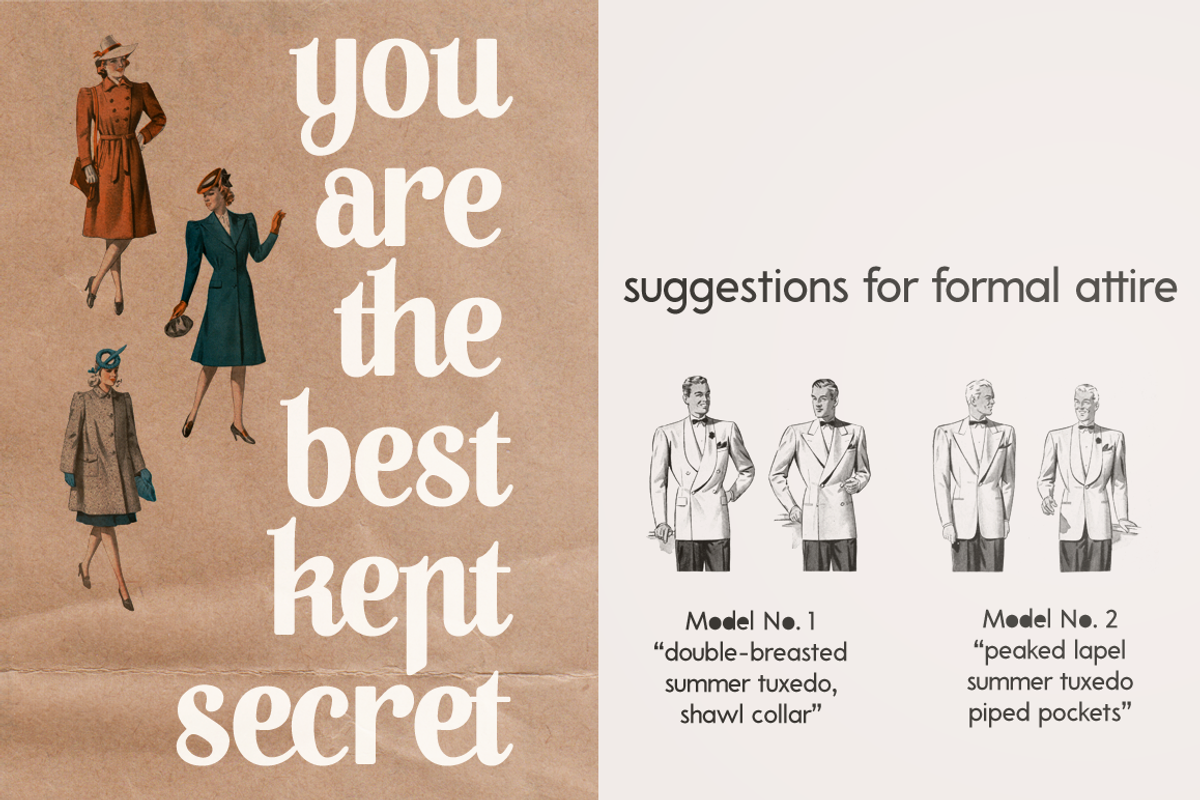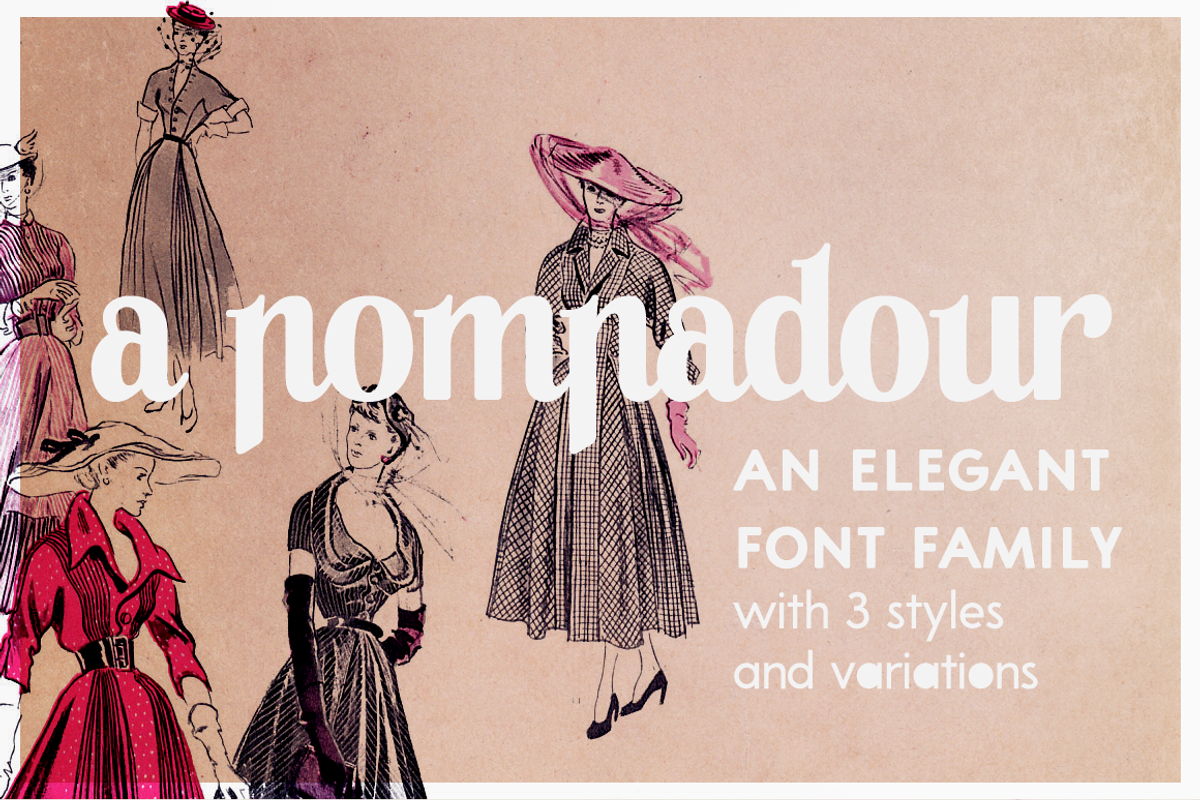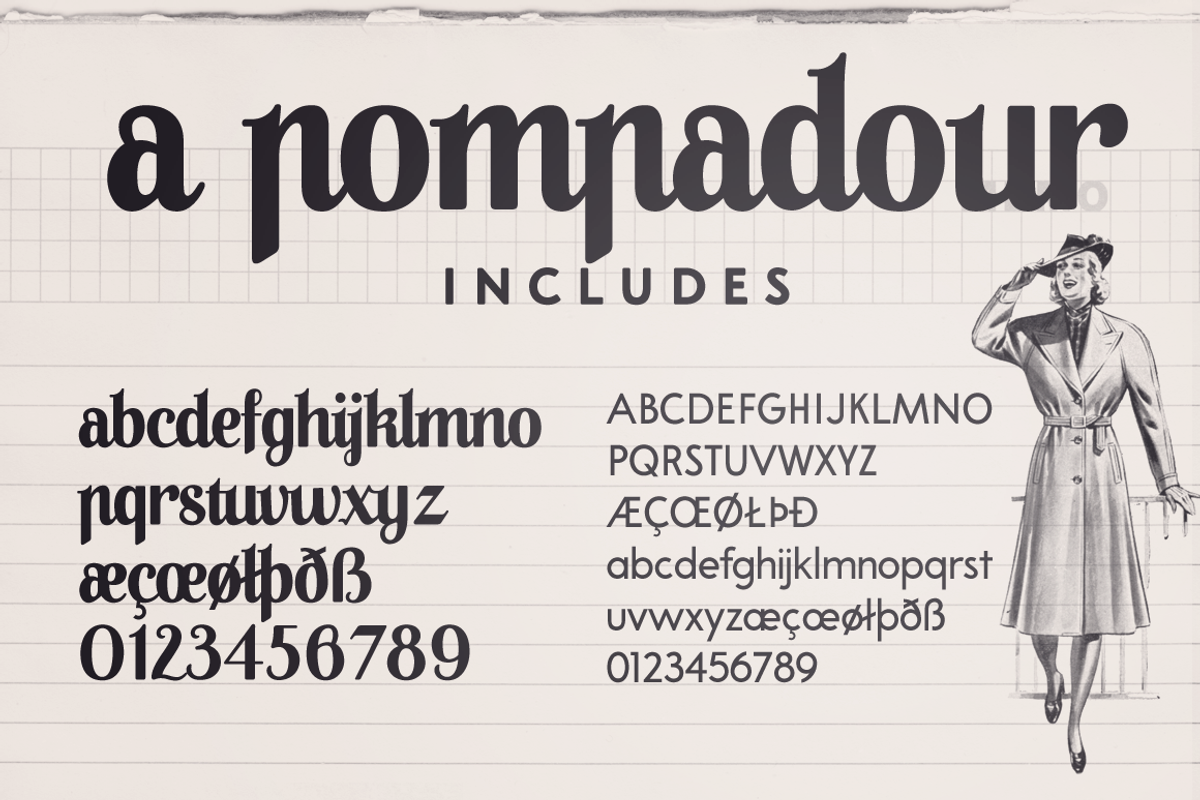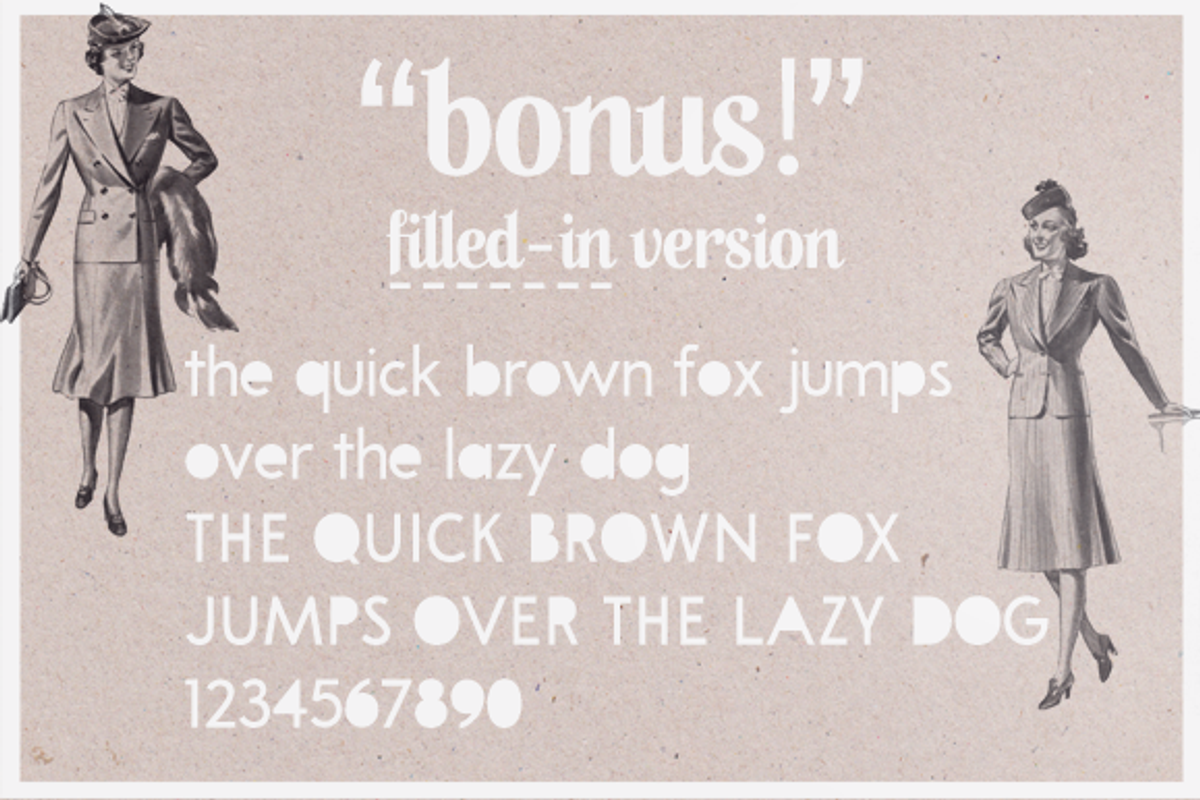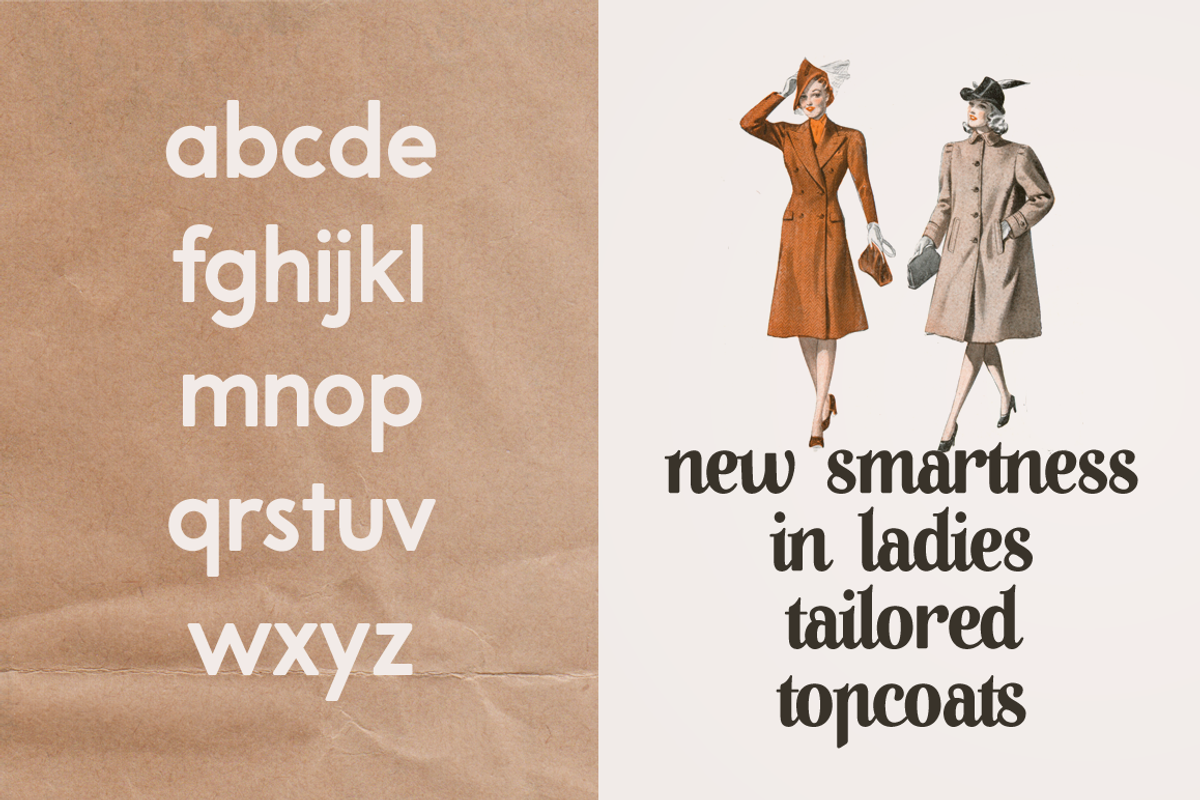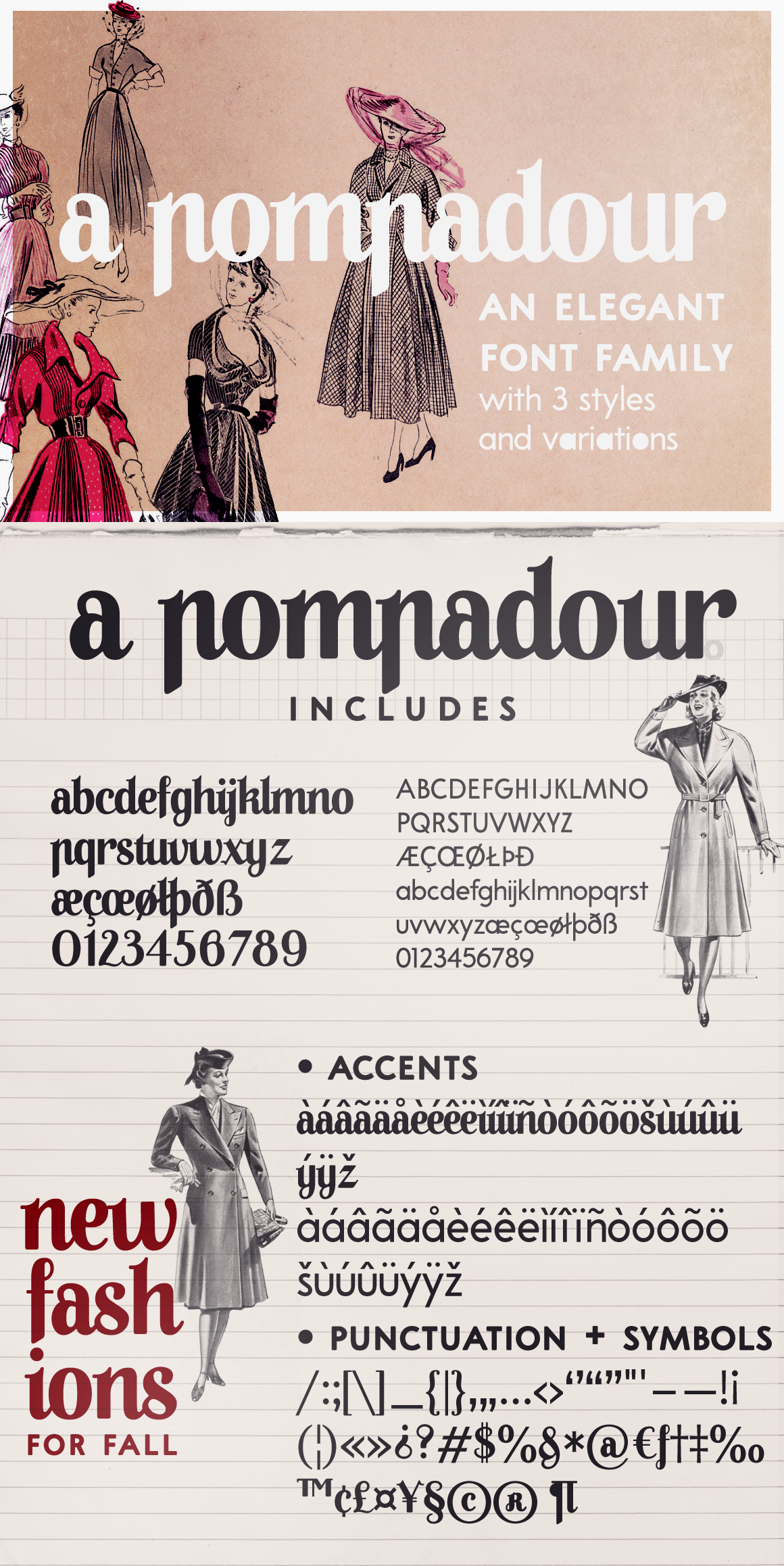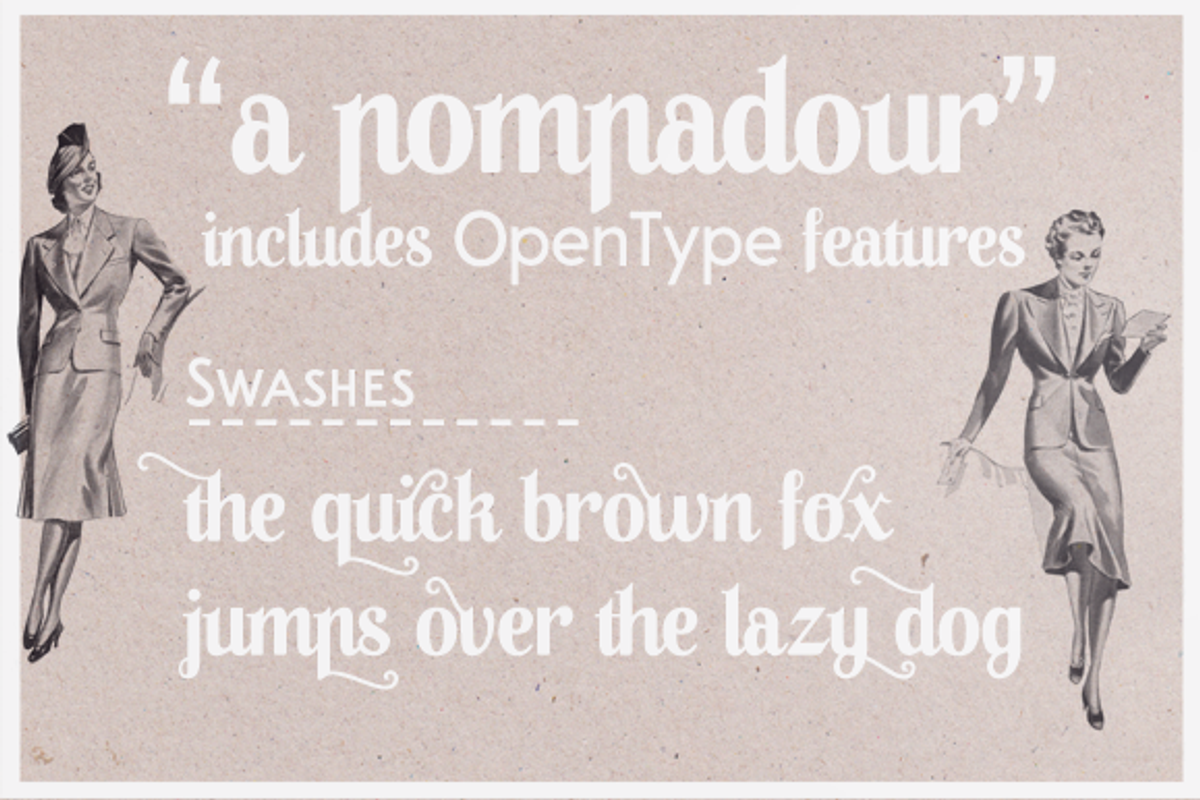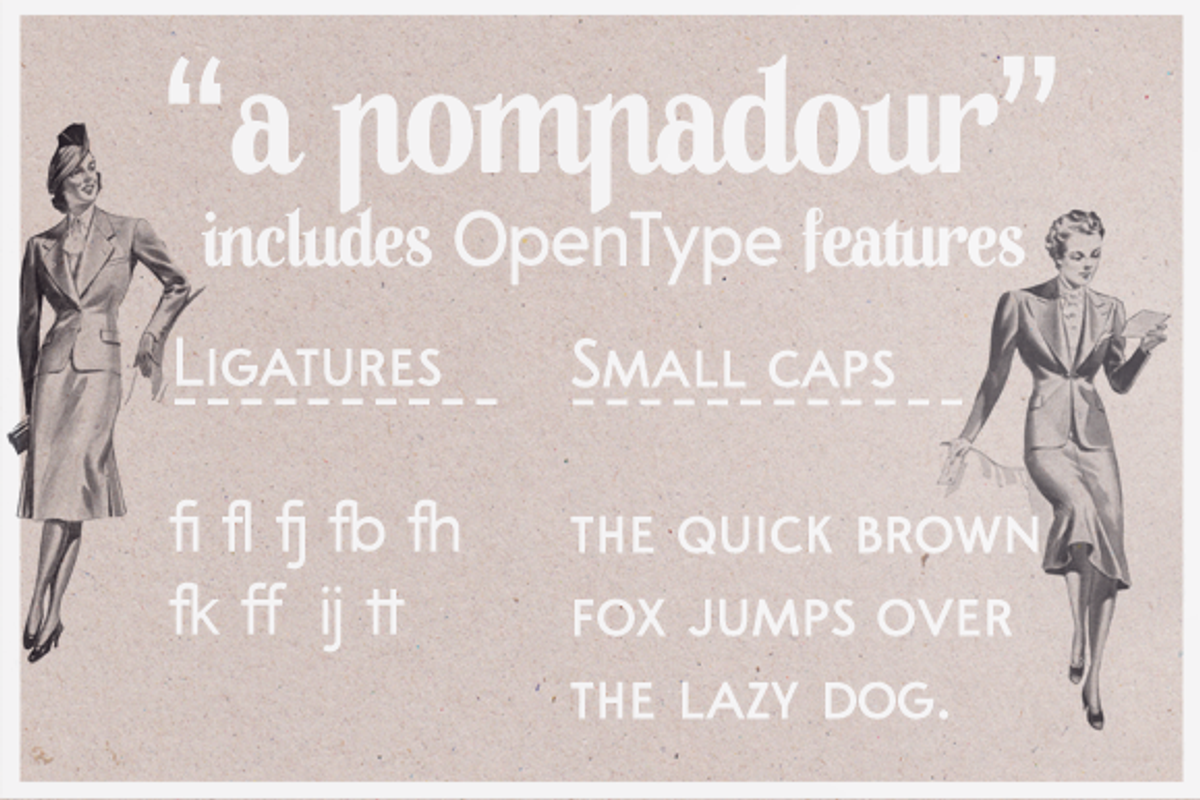
A Pompadour retro font duo
A Pompadour is an elegant retro font family, in two styles, with:
- A-Z, a-z, 0-9, accents, punctuation and symbols
- Small Caps
- Extra version of the font: filled
It's great for branding, business cards, resumes, for short and long texts.
This font was inspired by this vintage advertisement by Maria Keil: http://www.tipografos.net/portugal/maria-keil-pompadour.jpg